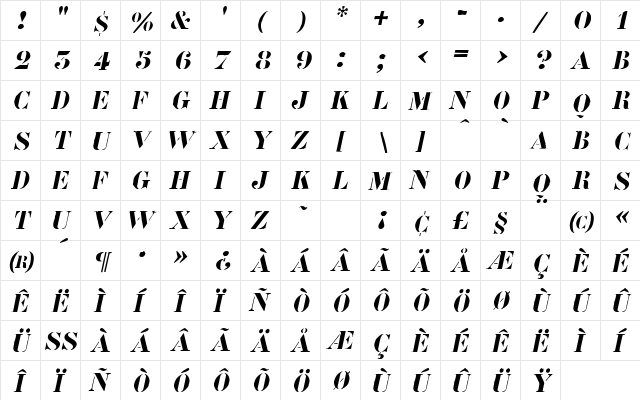
Roadcase Oblique
Design Context for Roadcase Typeface
Roadcase offers clean, dependable letterforms without strong stylistic allegiance, making it a practical choice for designers who need flexibility. Its italic angle brings a sense of urgency and motion to the letterforms.
Pro Tip: Try Roadcase for annotation and caption copy alongside an upright companion — the contrast in angle creates a dynamic but ordered typographic system.